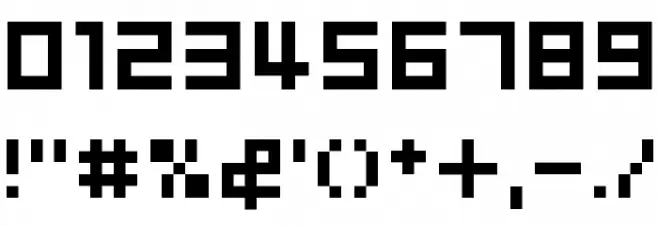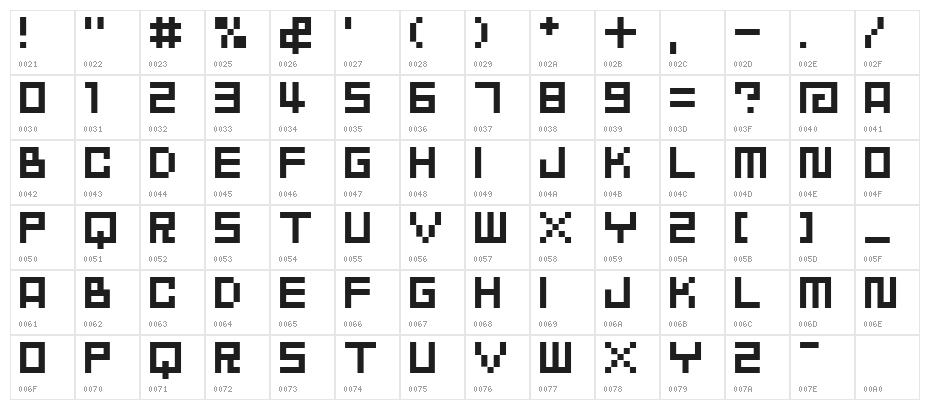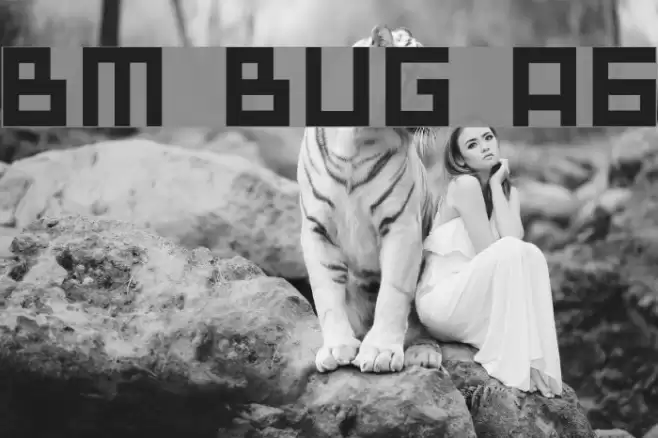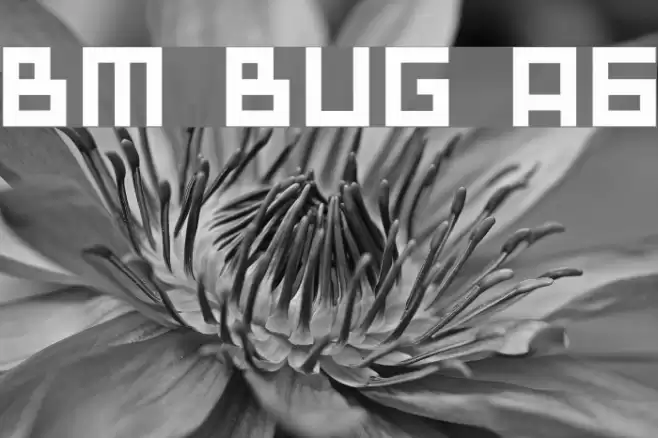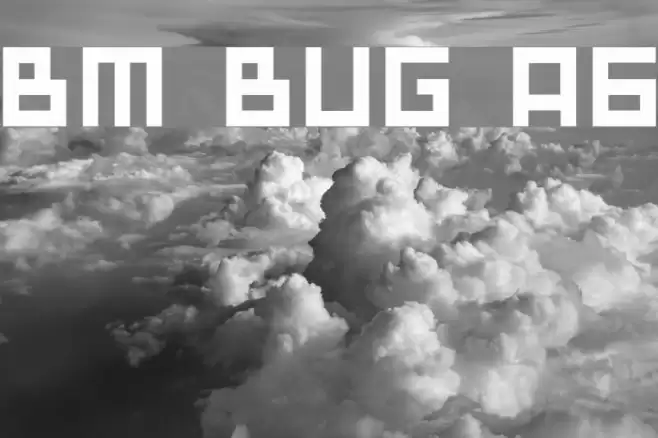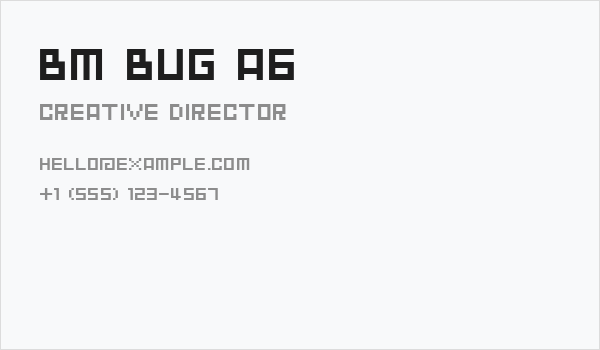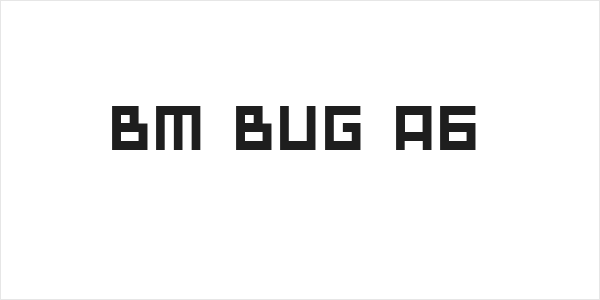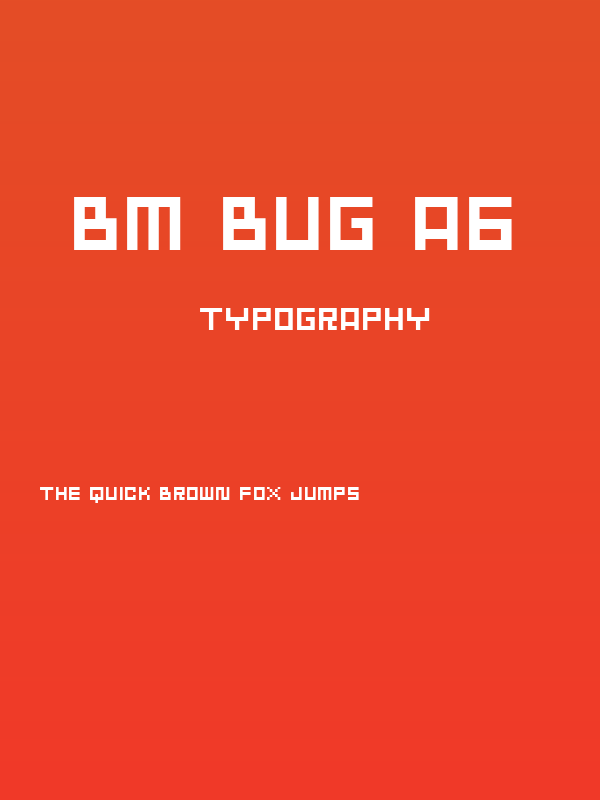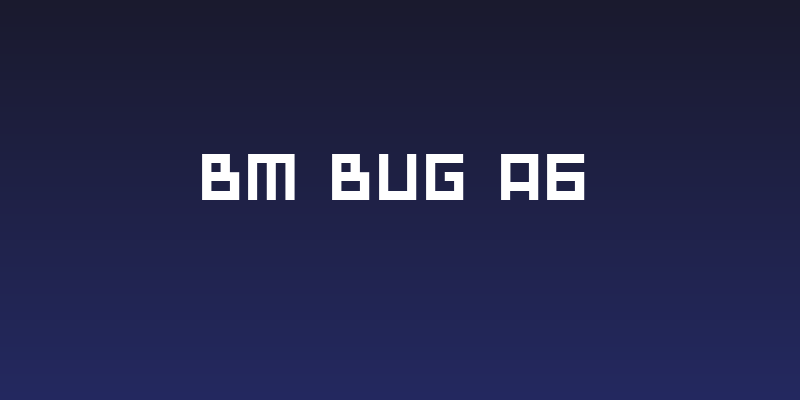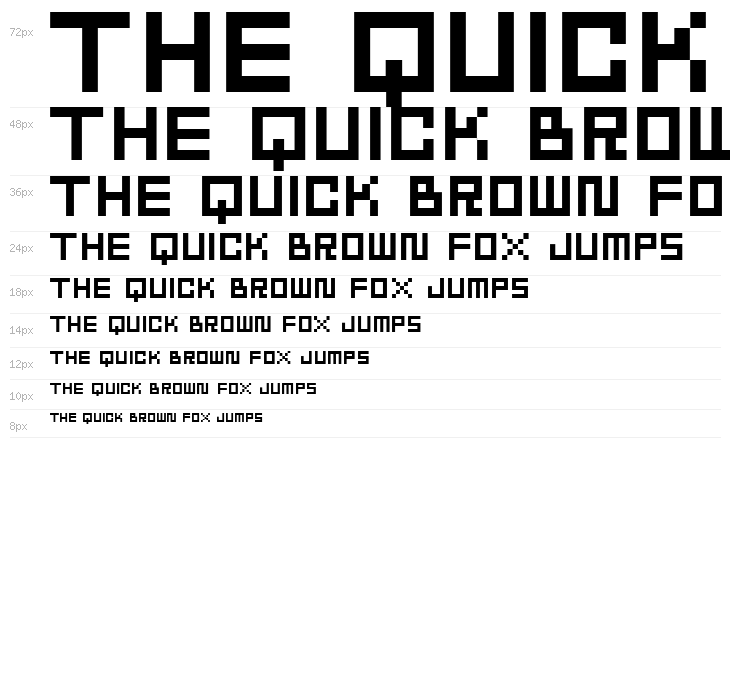
BM bug A6 Font
BM bug A6 Description
This font features a pixelated, blocky design reminiscent of early digital displays and video game graphics. Each character is constructed with a uniform grid-like pattern, giving it a distinctly retro and digital aesthetic. The uppercase and lowercase letters maintain a consistent height and width, contributing to a monospaced appearance. The numerals and special characters follow the same pixelated style, ensuring uniformity across all glyphs. This font's bold and geometric structure makes it highly legible, even at smaller sizes, while its unique style adds a nostalgic touch to any design.
| Use Case | Headlines, Logos, Digital Art |
| Proposed Projects | Ideal for retro-themed designs, video game graphics, digital art projects, and any creative work seeking a nostalgic, digital look. |